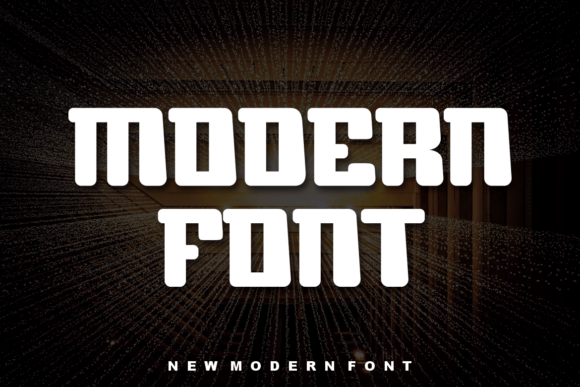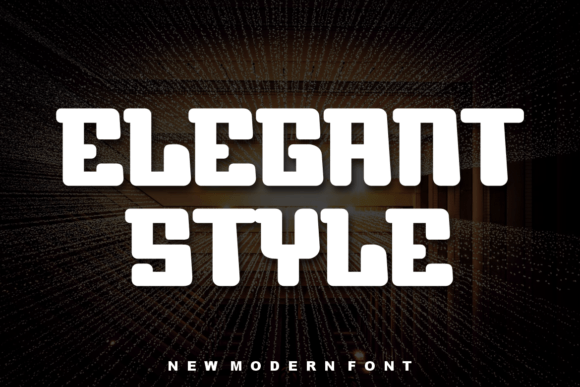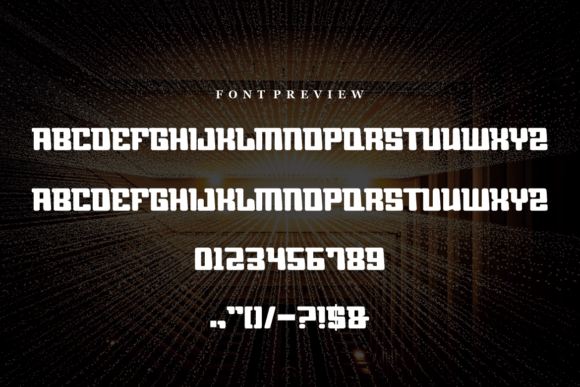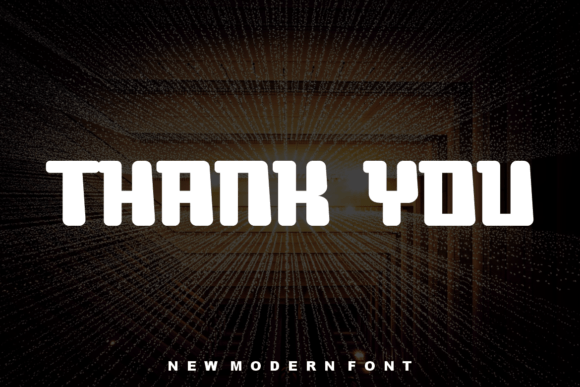
Coremax Font: The Ultimate Modern Display Font for Bold Branding
In the world of typography, fonts play a crucial role in shaping the identity of a brand. A well-designed font can elevate a brand’s visual appeal, making it more recognizable and memorable. Coremax Font is one such modern display font that has been making waves in the design community. In this article, we’ll dive into the features, benefits, and uses of Coremax Font, and explore why it’s an excellent choice for designers and crafters.
What is Coremax Font?
Coremax Font is a bold and authentic display font designed to make a statement. Its modern and sleek design makes it perfect for a wide range of branding projects, including logos, esport, and more. The font’s unique characteristics and versatility have made it a popular choice among designers and crafters.
Key Features of Coremax Font
- Bold and Authentic: Coremax Font boasts a bold and authentic design that grabs attention and makes a lasting impression.
- Modern and Sleek: The font’s modern and sleek design ensures it fits seamlessly into a wide range of contexts, from digital platforms to print materials.
- Versatile: Coremax Font is suitable for various branding projects, including logos, esport, and more.
- Easily Readable: Despite its bold design, Coremax Font remains easily readable, even at smaller sizes.
Benefits of Using Coremax Font
Coremax Font offers several benefits to designers and crafters, including:
- Unique Identity: Coremax Font helps create a unique identity for brands, setting them apart from competitors.
- Professional Look: The font’s modern design gives brands a professional and sleek look, perfect for establishing a strong visual presence.
- Time-Saving: Coremax Font is easily customizable, saving designers time and effort in the creative process.
- Cross-Platform Compatibility: The font is compatible with various digital platforms and devices, ensuring consistency across different mediums.
Use Cases for Coremax Font
Coremax Font is an excellent choice for various design projects, including:
- Logo Design: The font’s bold and authentic design makes it perfect for creating memorable logos.
- Esport and Gaming: Coremax Font’s modern design is well-suited for esport and gaming brands, adding a touch of professionalism and sleekness.
- Branding and Advertising: The font’s versatility makes it suitable for various branding and advertising projects, including billboards, posters, and digital ads.
- Digital Media: Coremax Font is optimized for digital use, making it perfect for websites, social media, and mobile apps.
Tips for Using Coremax Font Effectively
To get the most out of Coremax Font, follow these tips:
- Pair with Complementary Fonts: Combine Coremax Font with complementary fonts to create visual interest and hierarchy.
- Experiment with Colors: Try out different color schemes to find the perfect match for your brand.
- Adjust Font Size and Style: Experiment with different font sizes and styles to create visual emphasis and hierarchy.
| Font Name | Coremax Font |
Coremax Font is a powerful modern display font that offers a unique blend of boldness, authenticity, and versatility. Its wide range of applications, from logo design to digital media, makes it an excellent choice for designers and crafters. By incorporating Coremax Font into your design projects, you’ll be able to create stunning visual identities that leave a lasting impression.